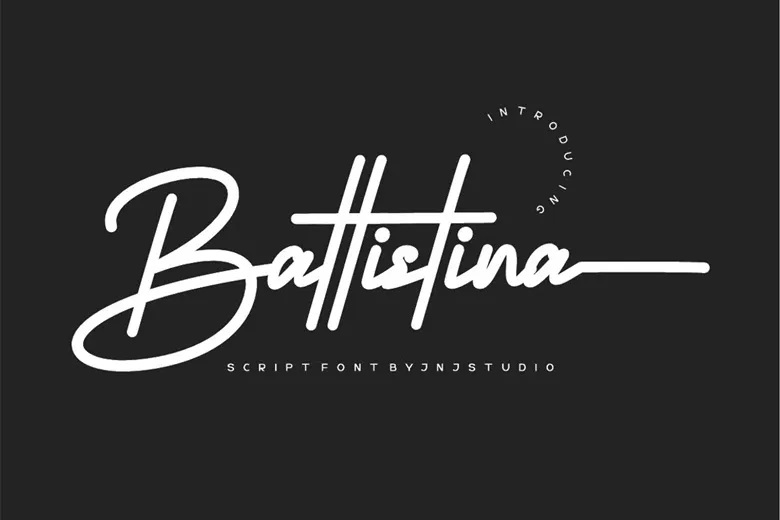
Battistina Font
Battistina is a classy type of script that embodies the classical beauty in a smooth handwritten manner. Battistina is inspired by traditional calligraphy and contemporary lettering and includes smooth lines, balanced strokes, and finished details to form a friendly but refined personality. This font is designed to be readable and natural, in an expressive manner, and has an artistic quality.
The soft rhyming of its letters, Battistina is ideal in branding, wedding invitations, logos, social media design, packaging and editorial work that needs a touch of sophistication and personality.
Battistina Handwritten Script Font